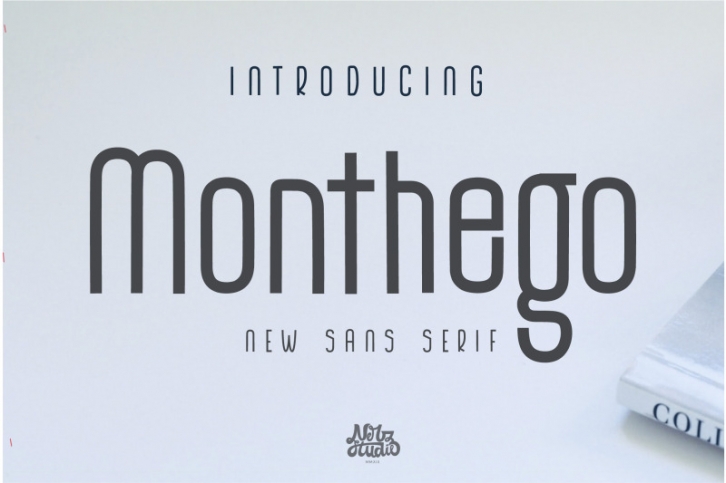
The Monthego Sans Serif FONT Download
The Monthego is a New Sans Serif Font  - it's an amazing character.otf and ttf- standard uppercase, lowercase, numbers, punctuation an multilingual support
This font is handmade. The font is work specialty is good for product design like a Template/mockup, Megazine, Post, T-shirt, Quote, event or you can use for your logo design, typography design, etc. This product is inspirational for your creative design.